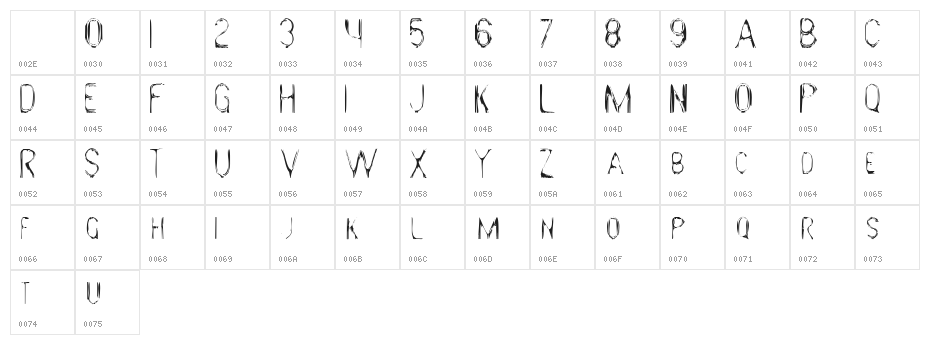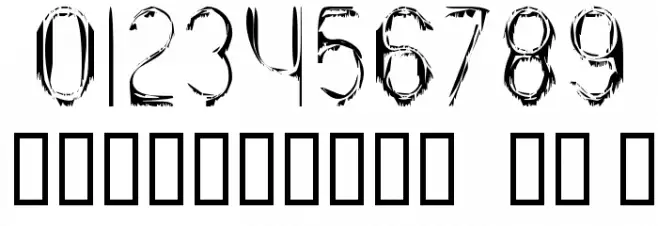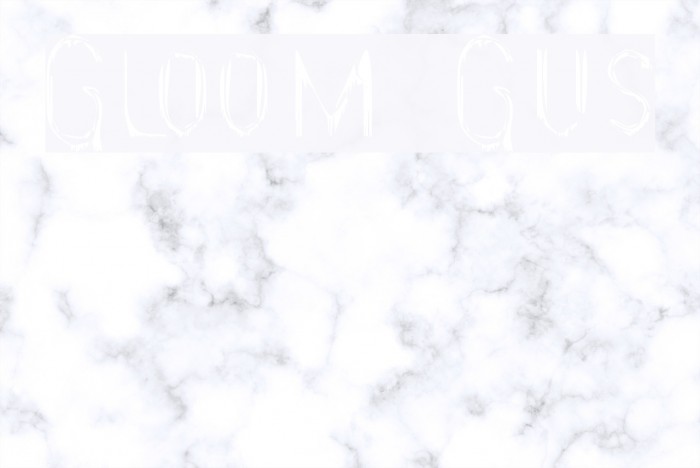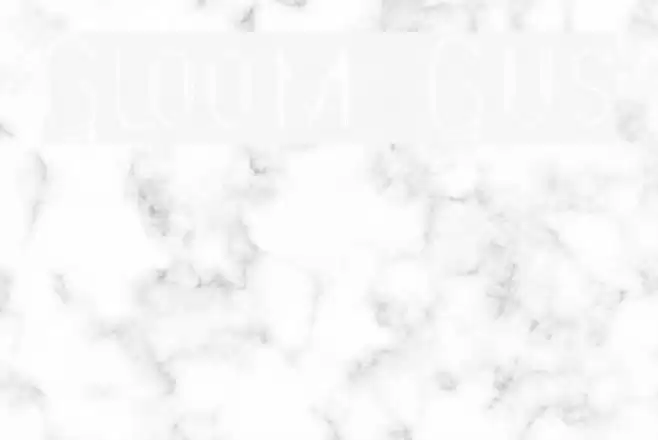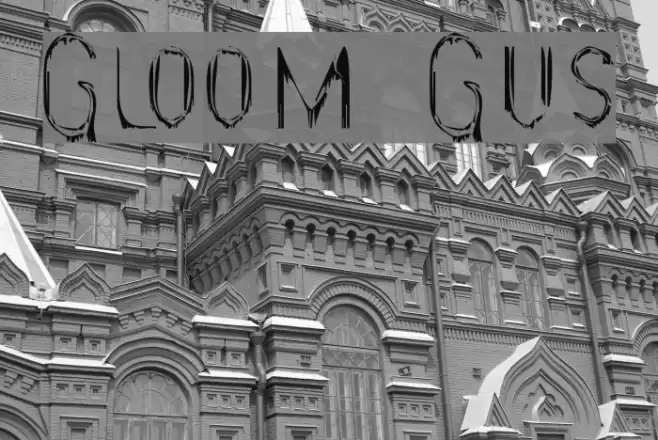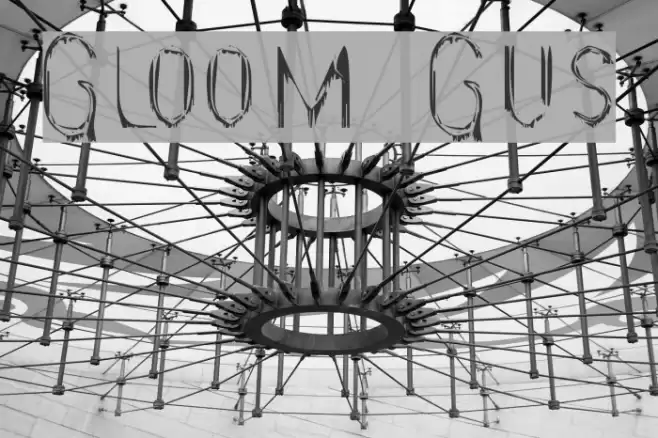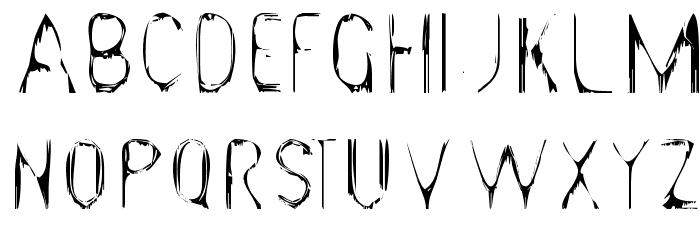
Gloomy Gus Font
Gloomy Gus Description
This font features a distressed and grungy aesthetic, with each character appearing as if it has been weathered or eroded over time. The letters have a bold presence with irregular edges and a rough texture that gives them a unique, worn look. The uppercase and lowercase letters are consistent in style, maintaining the rugged appearance throughout. Numbers and special characters follow the same design, ensuring uniformity across all elements. This font's distinctive style makes it stand out, ideal for projects that require a bold, edgy, and artistic touch.
| Overall Style | Grunge, Artistic |
| Use Case | Headlines, Posters, Artistic Designs |
| Proposed Projects | Ideal for album covers, posters, urban-themed designs, or any project needing a gritty, artistic edge. |